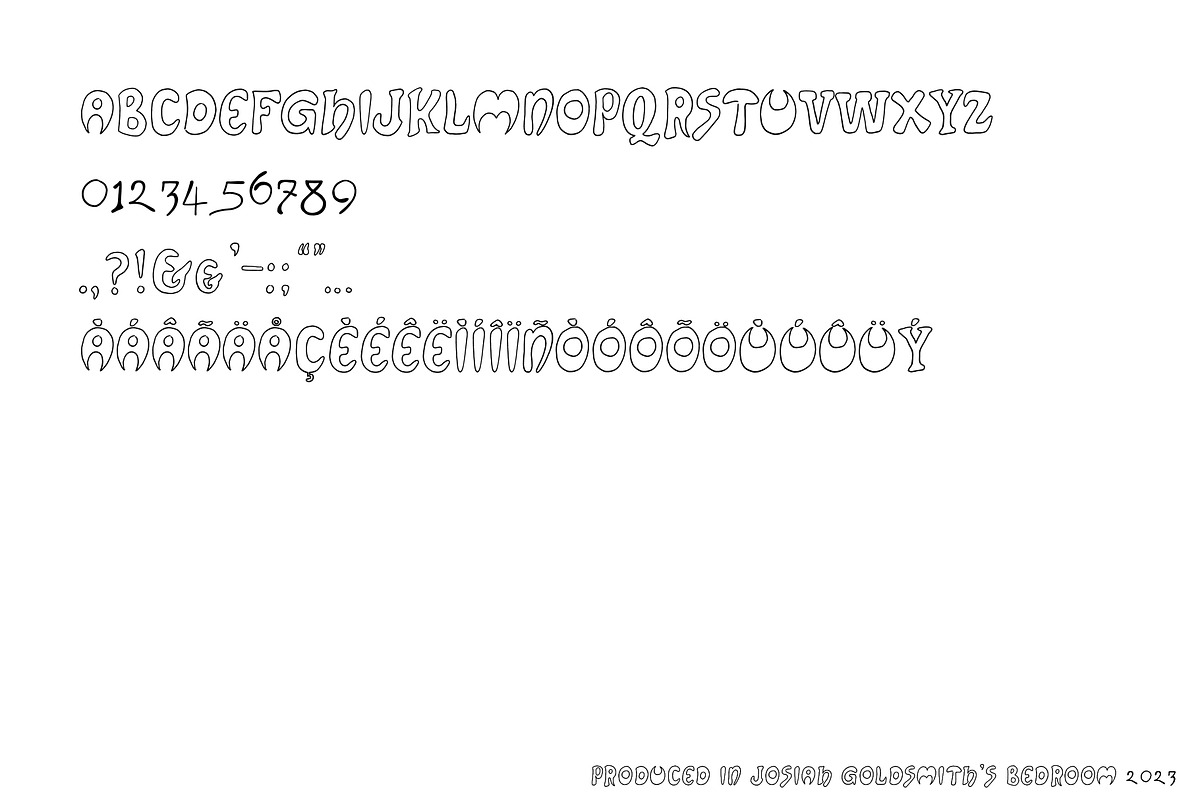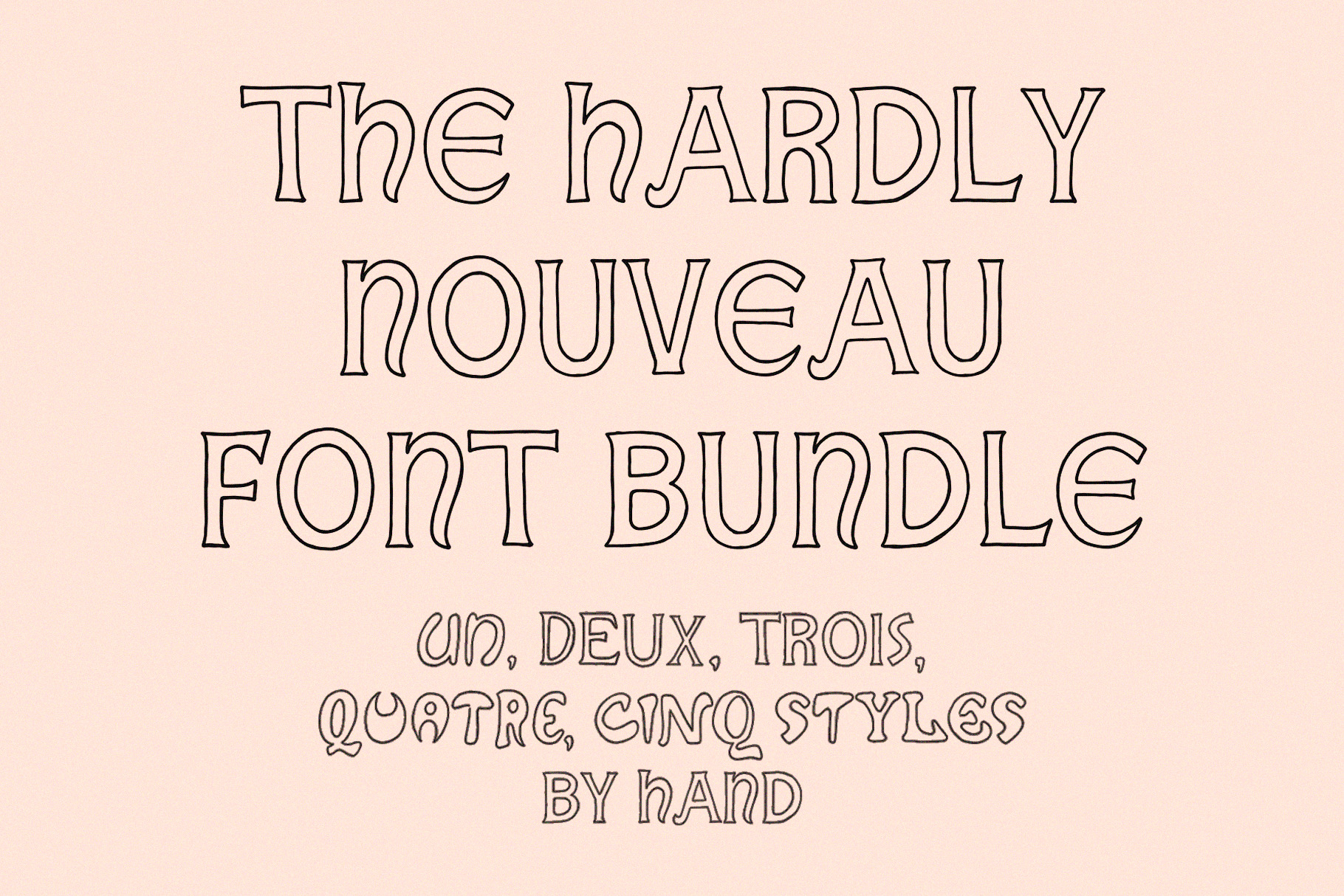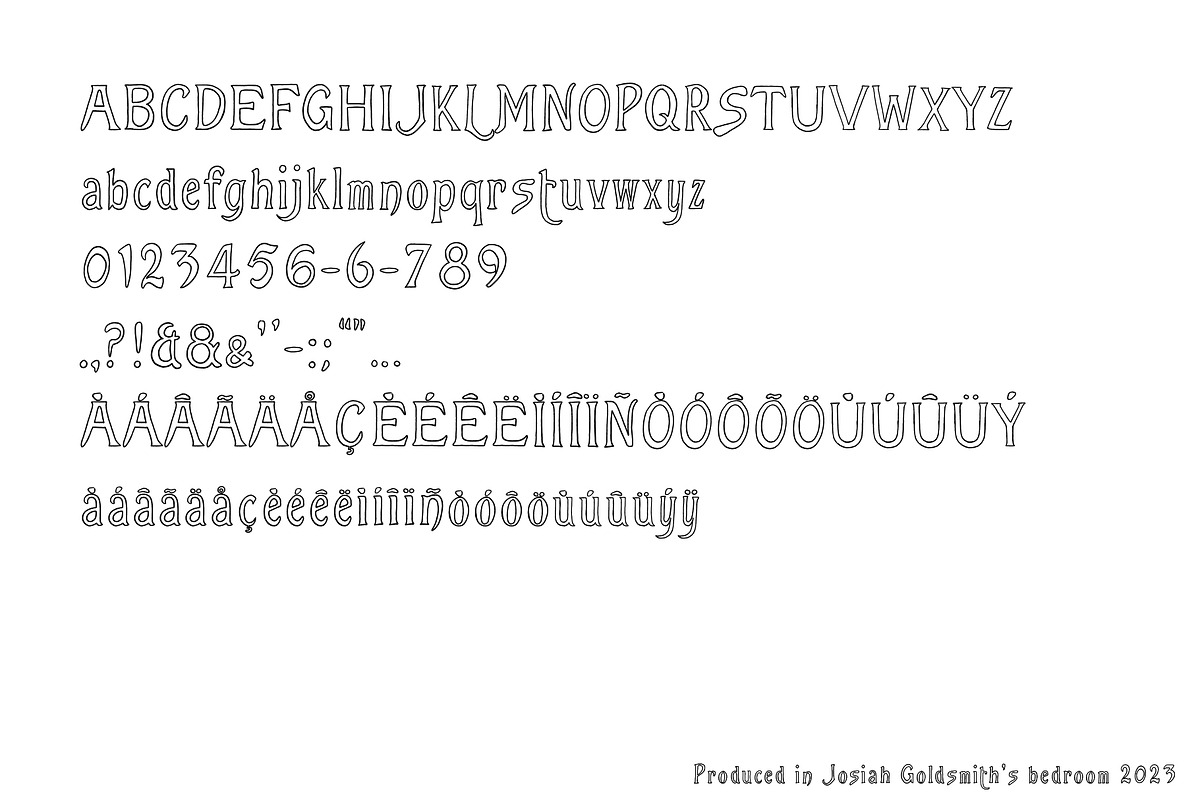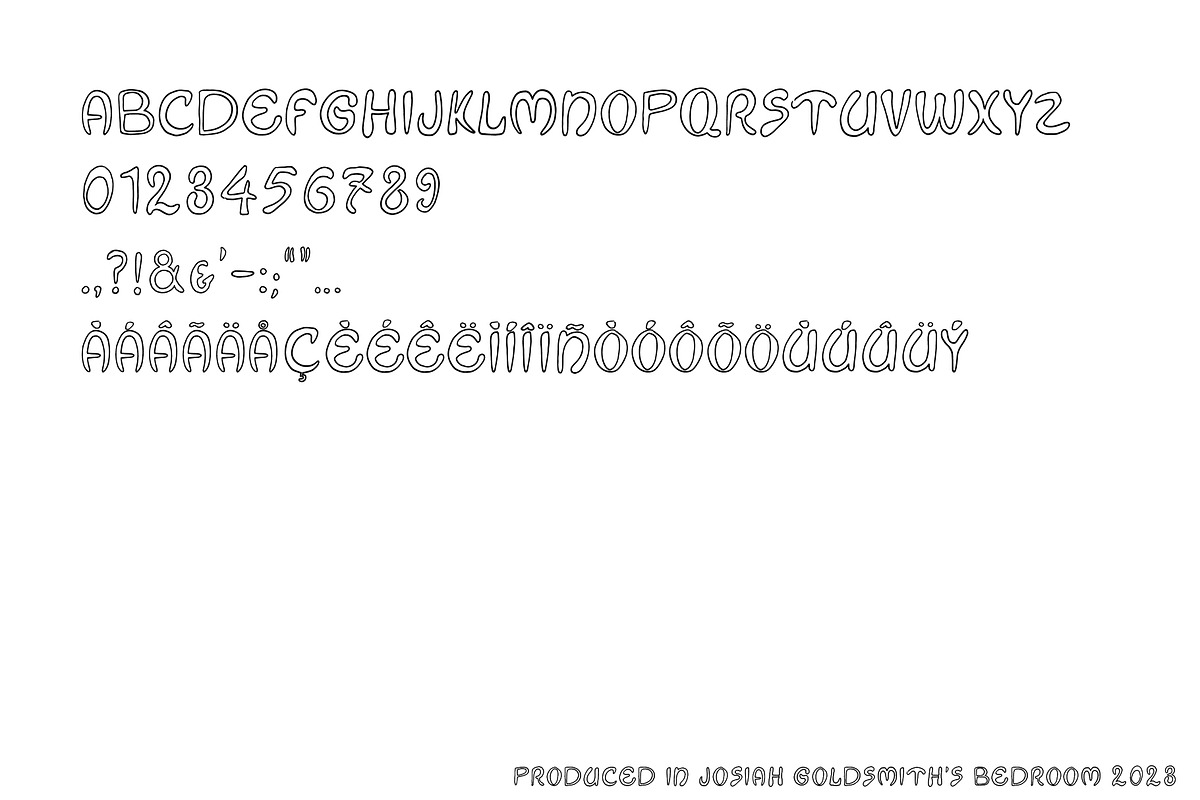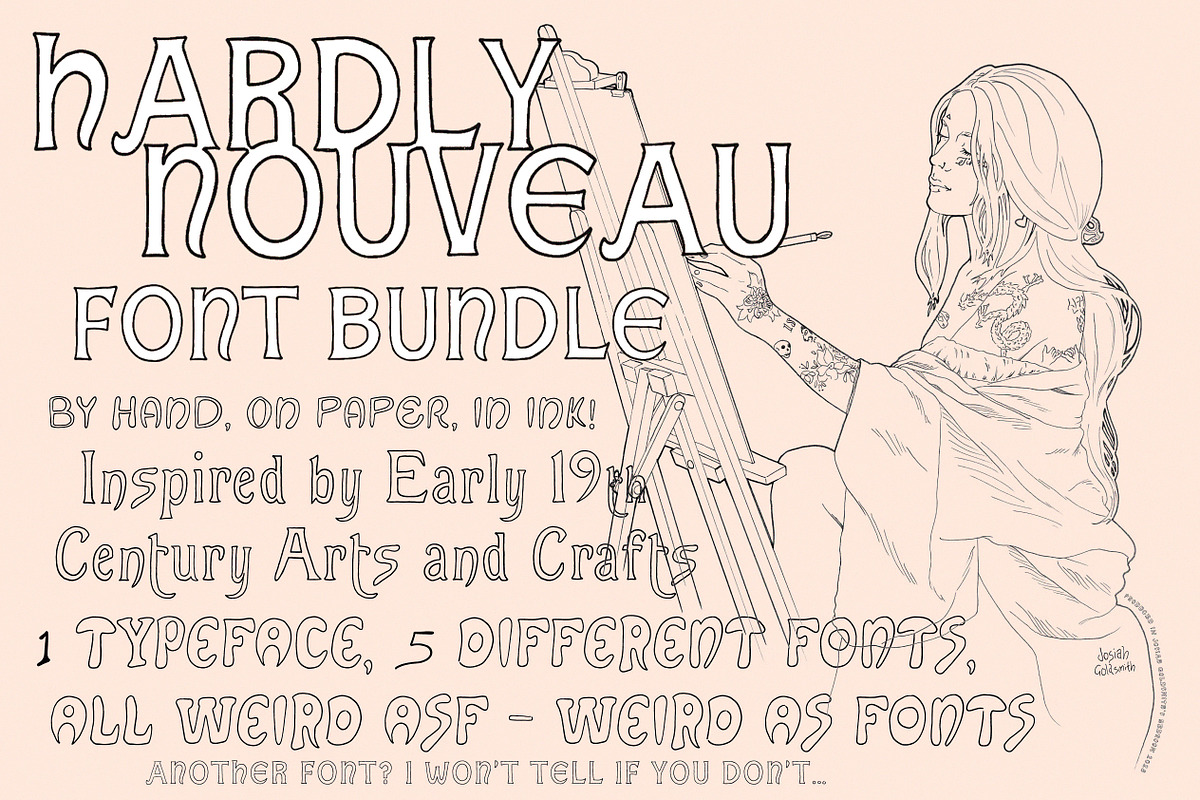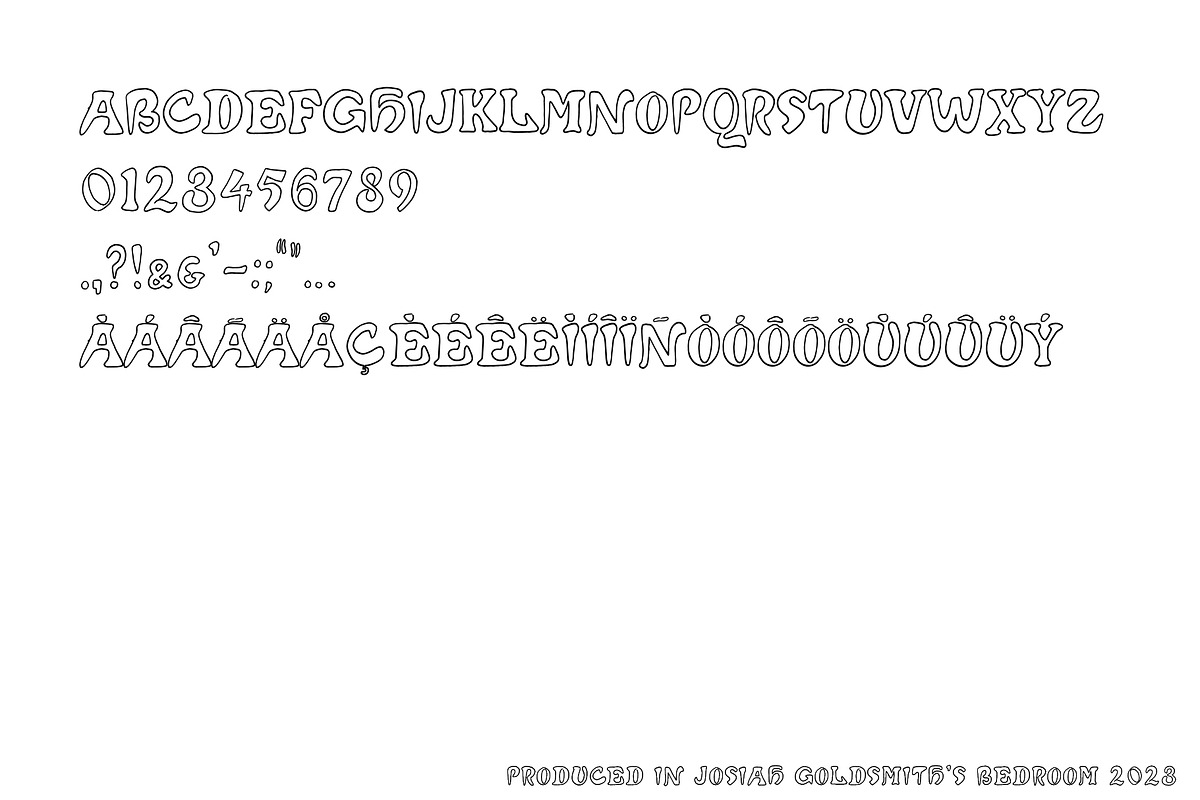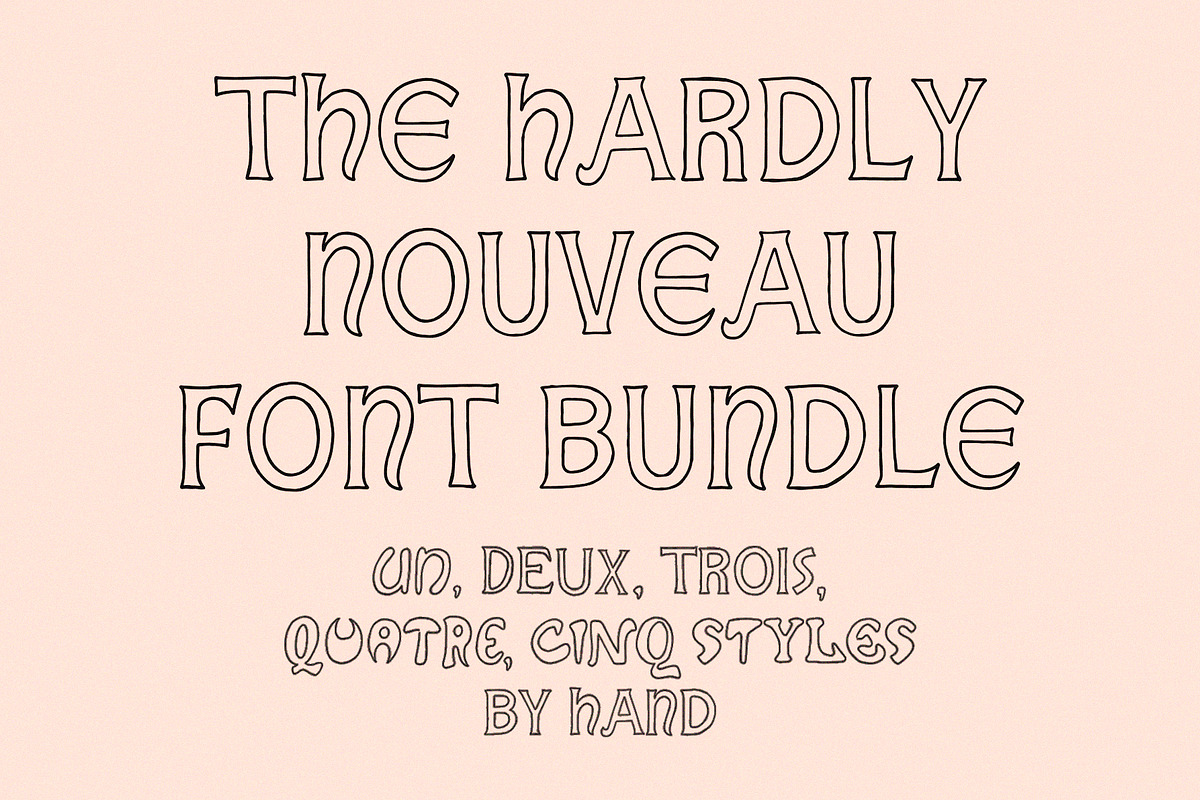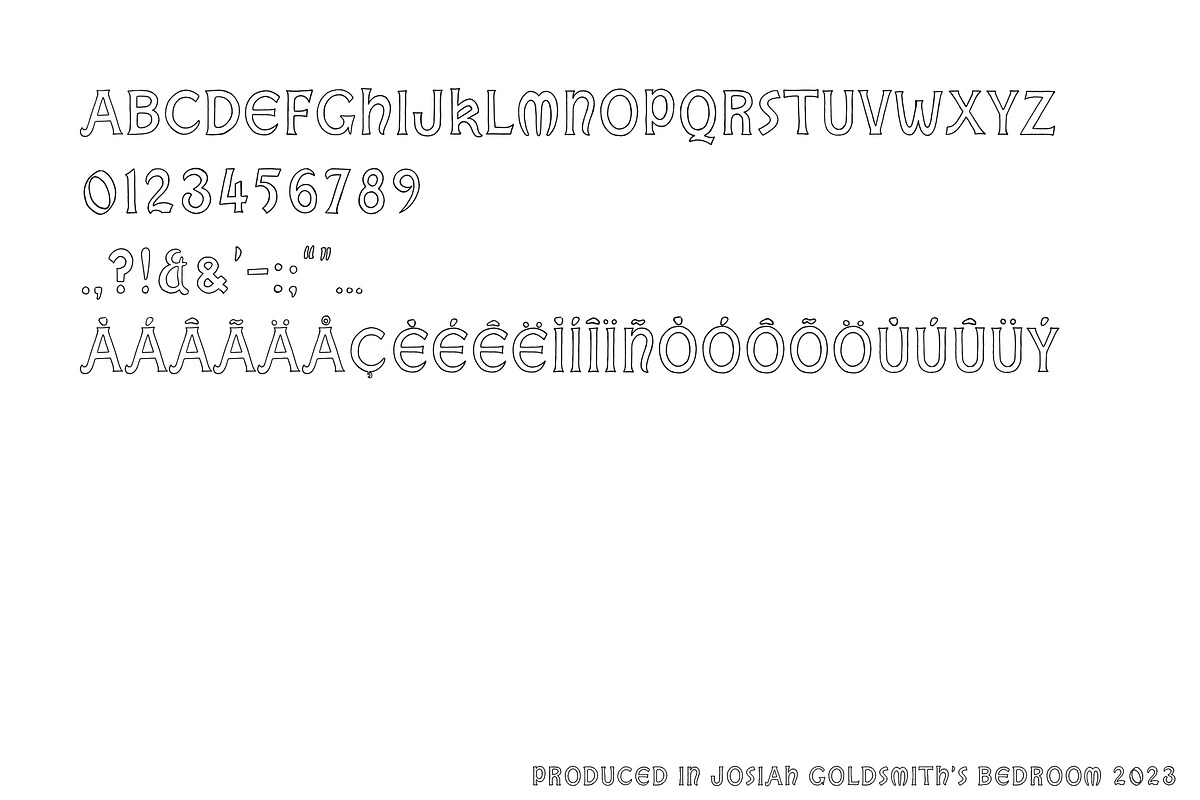
Hardly Nouveau | Font Collection
The Art Nouveau movement was an early 19th-century revolution against the replacement of hand-made with machine-made. The Hardly Nouveau collection, similarly, is a revolt against the clinical and 'perfect'. It's human, handmade, and beautiful in its wonkiness!
Every single display font in this series, every glyph, every special character, is drawn 100% by hand on paper. Capture the handmade vibe at a fraction of the cost!